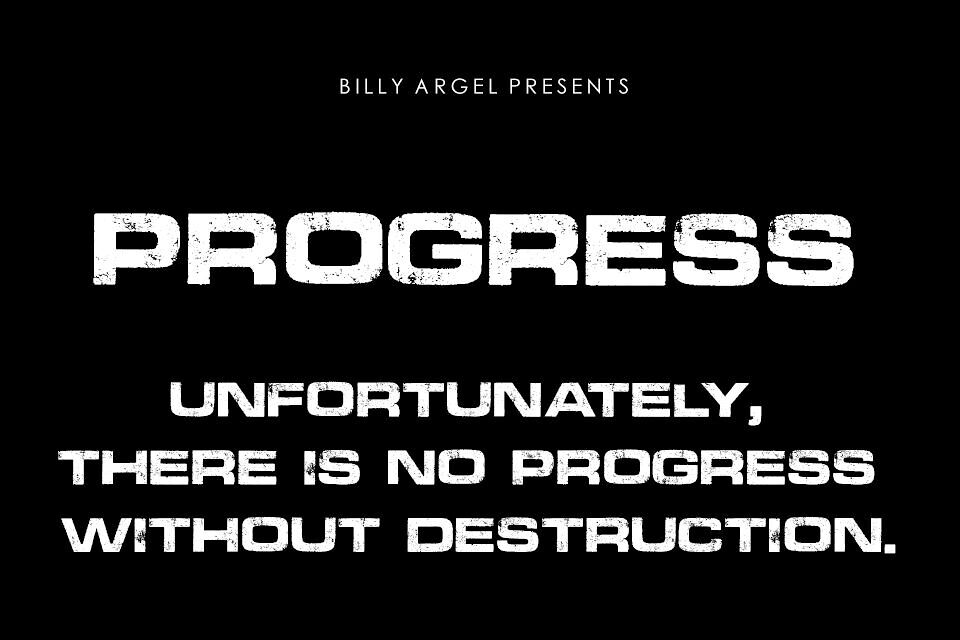
Progress Font
Progress is a striking, futuristic display font built with a bold, techno-inspired aesthetic. Featuring clean, geometric lines mixed with sharp, unconventional cuts, it channels a distinct sci-fi and industrial vibe.
Its high-impact, wide-set uppercase characters make it perfect for standout headers, gaming branding, movie posters, and tech-focused designs. It’s a powerful choice for any project needing a modern, forward-thinking edge.